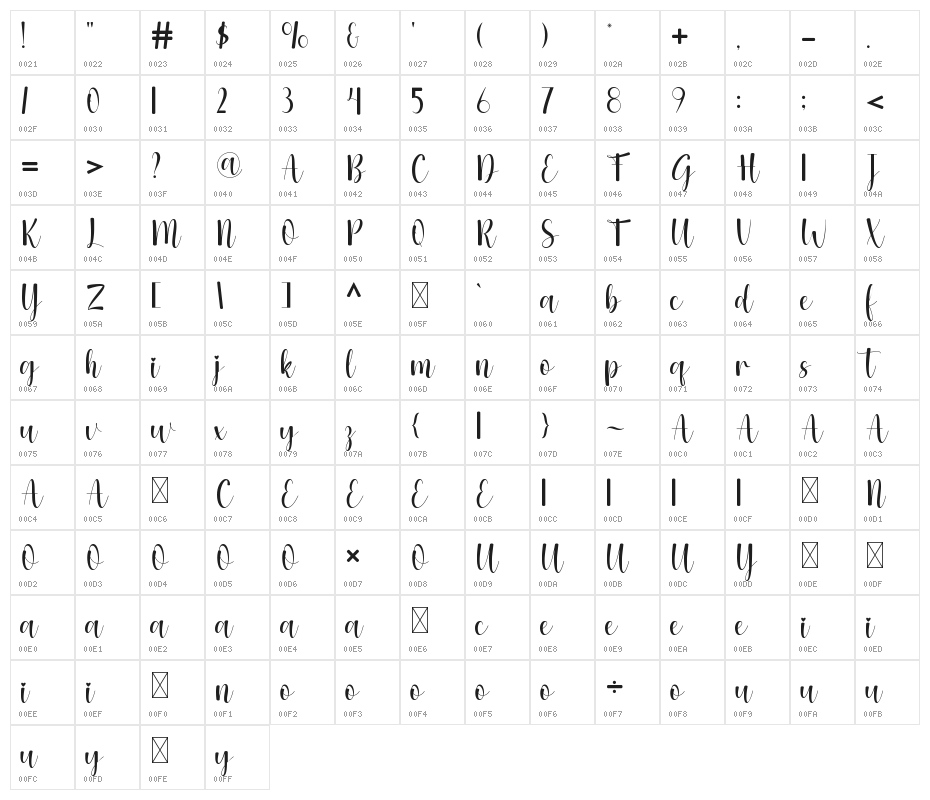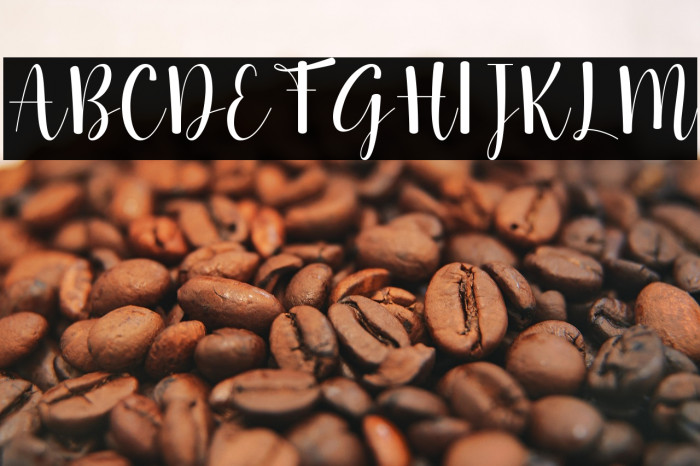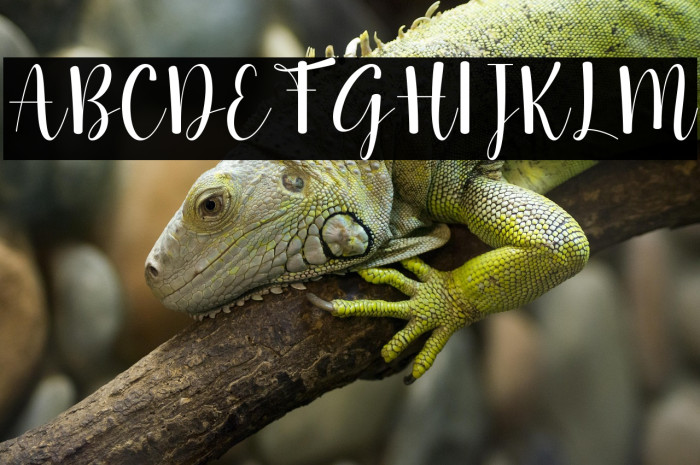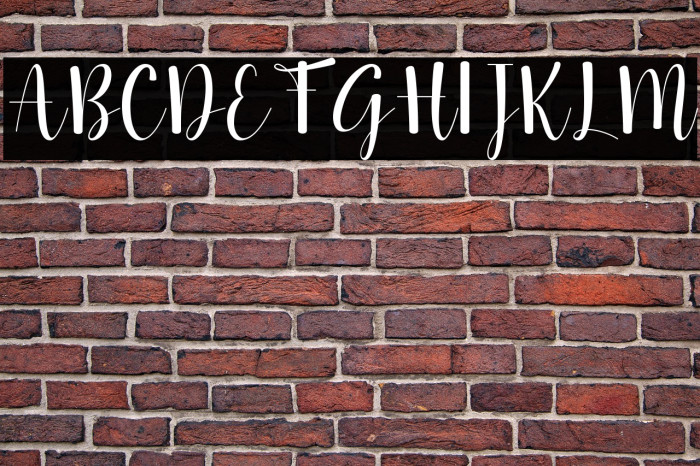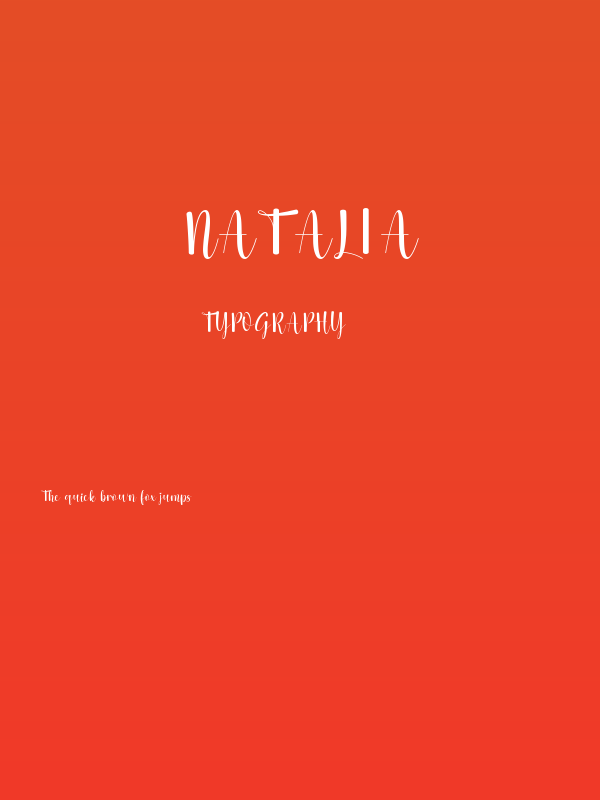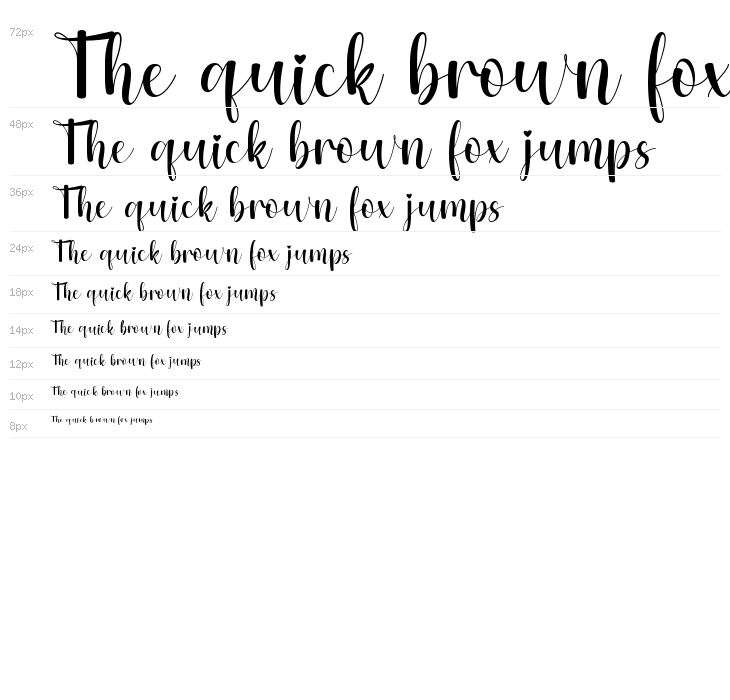
Natalia Font
Natalia Description
This font features a playful and elegant script style with a modern twist. The uppercase letters are tall and slender, with graceful curves and occasional flourishes that add a touch of sophistication. The lowercase letters maintain a consistent flow, with some characters featuring unique embellishments like small loops or hearts. The numerals are clear and easy to read, while the special characters blend seamlessly with the overall design. This font's artistic flair makes it suitable for creative projects that require a personal touch.